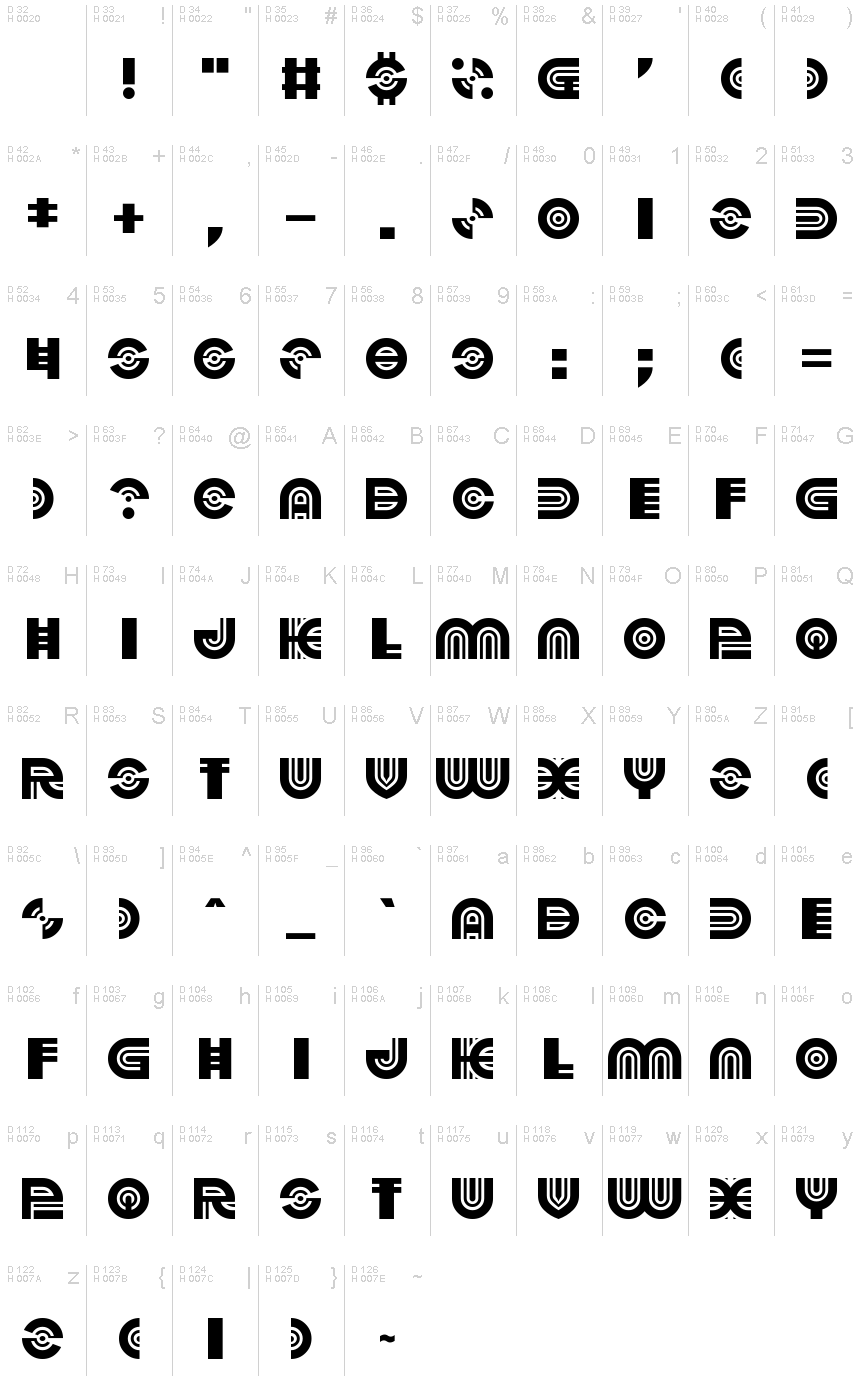
Pounds of Violence
Pounds of Violence, designed by AM, is a bold statement in the realm of display fonts. Its groovy style harks back to the psychedelic era, yet it carries a modern punch with its extra-bold weight and expanded width. The curves and lines dance with an unapologetic presence, demanding attention and setting a tone that's both assertive and playful.
The font's aesthetic appeal lies in its ability to stand out; it's not just a typeface but a design element capable of defining the character of any project. Whether used for concert posters, edgy editorial spreads, or vibrant branding campaigns, Pounds of Violence offers versatility within its niche. It embodies an energetic vibe that can elevate creative projects with an edge or inject a sense of retro coolness.
With Pounds of Violence, designers are armed with more than letters; they wield shapes that resonate visually and culturally, perfect for when you need your message not just to be seen but felt.